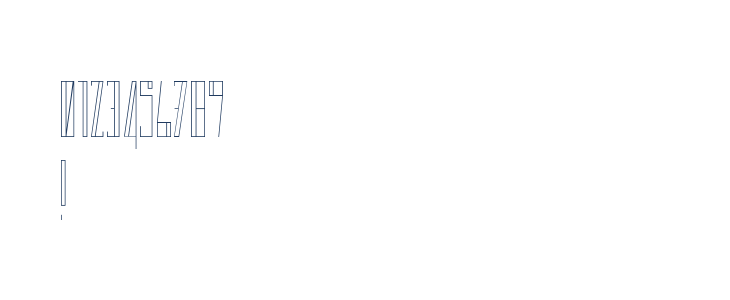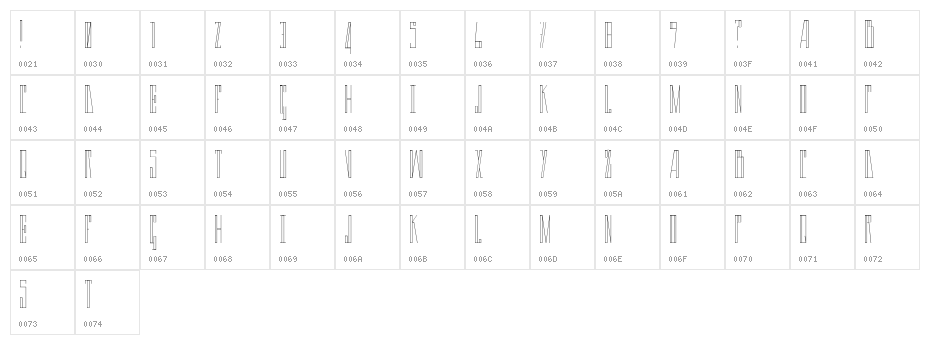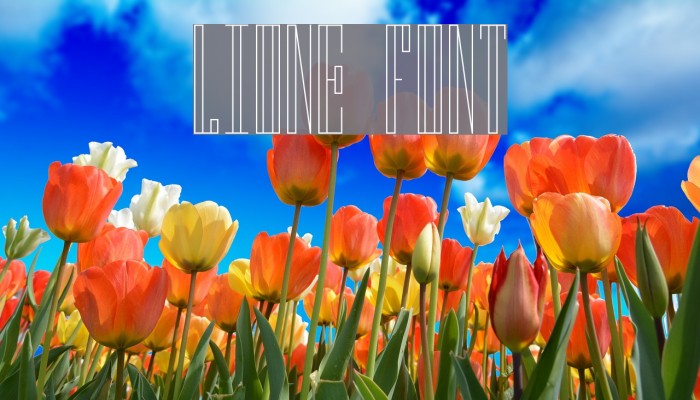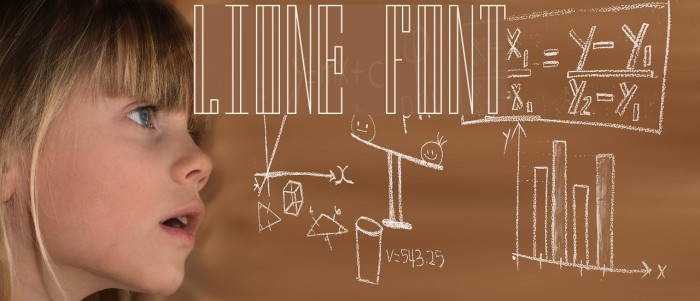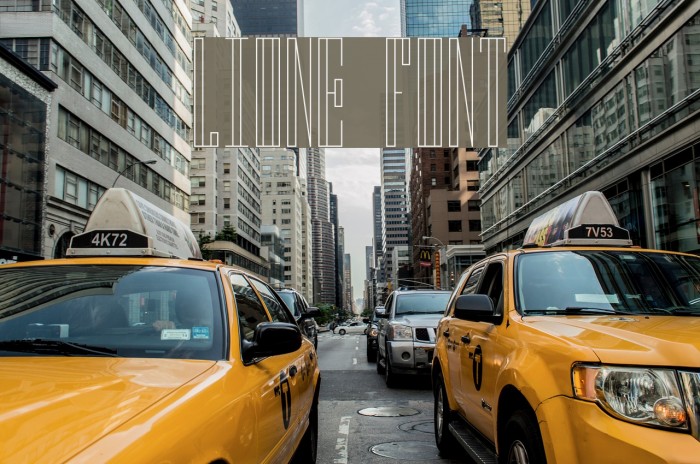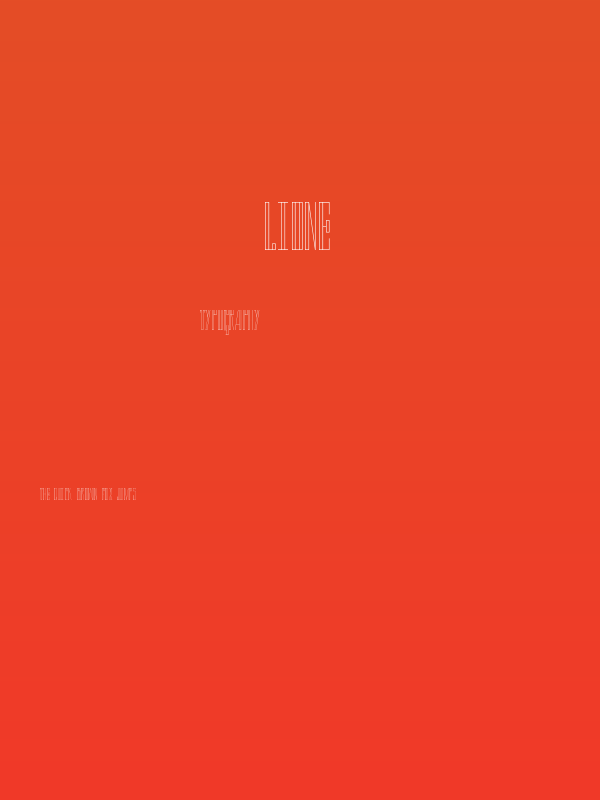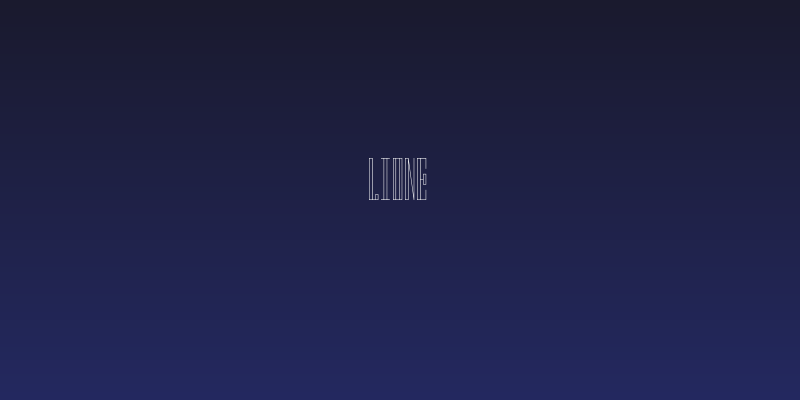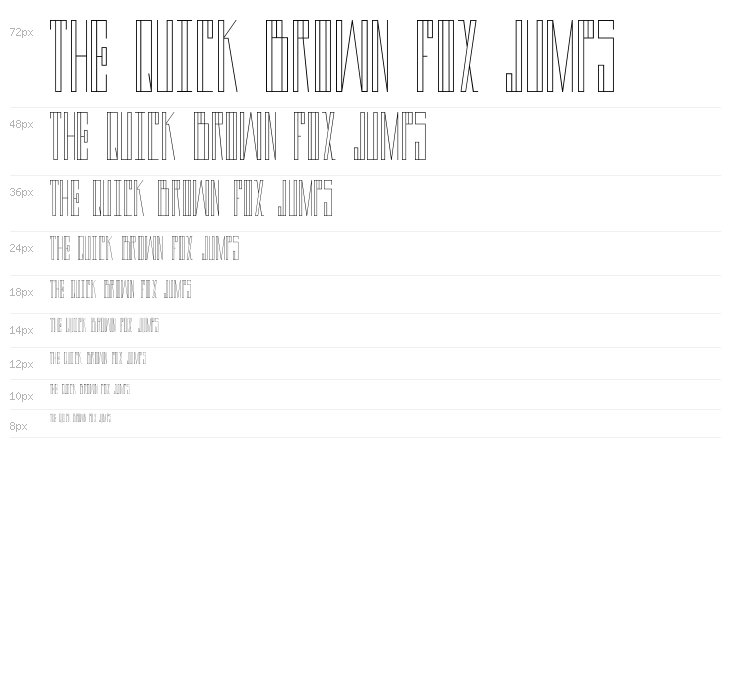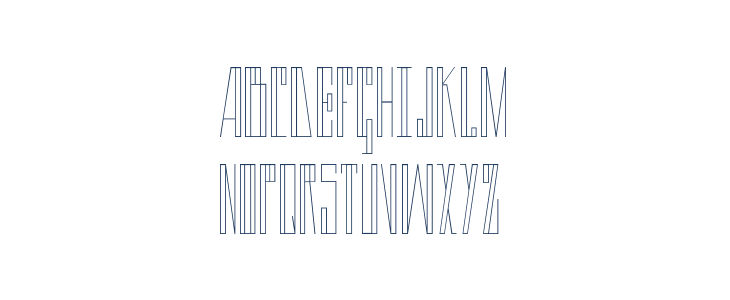
LIONE Font
✎ Futuristic
LIONE Description
This font features a geometric and angular design with elongated and narrow letterforms. The characters are constructed with thin lines, creating a modern and futuristic appearance. The uppercase and lowercase letters maintain a consistent style, emphasizing verticality and symmetry. The numerals and special characters follow the same design principles, ensuring uniformity across all glyphs. This font's unique structure makes it stand out, offering a distinctive look that is both sleek and sophisticated.
| Width | Condensed |
| Use Case | Logos, Headlines, Posters |
| Proposed Projects | Ideal for modern branding, futuristic designs, tech-related projects, and innovative product packaging. |